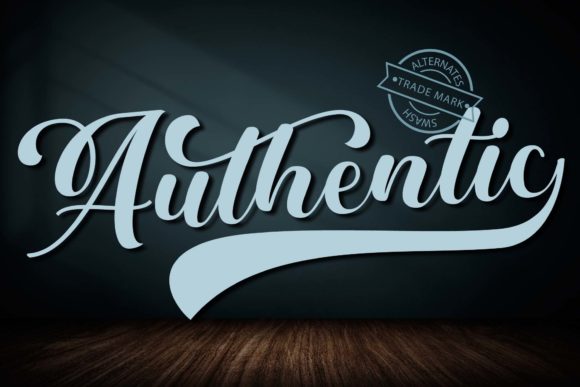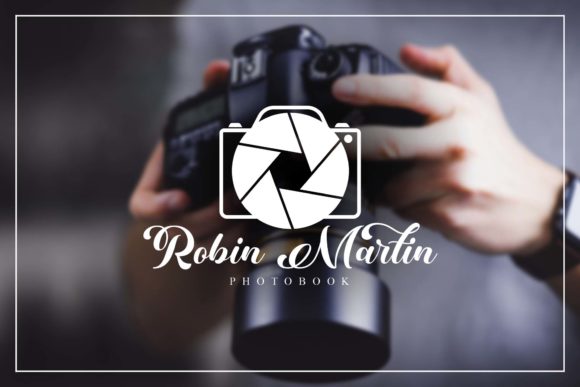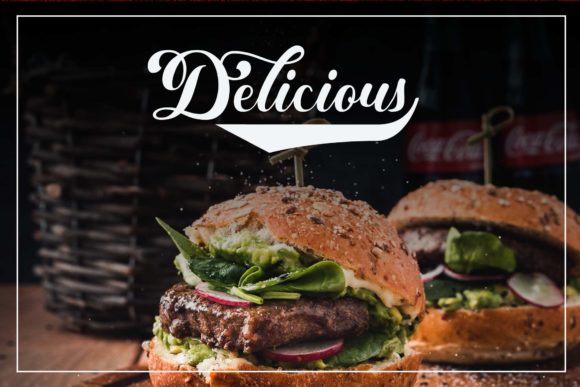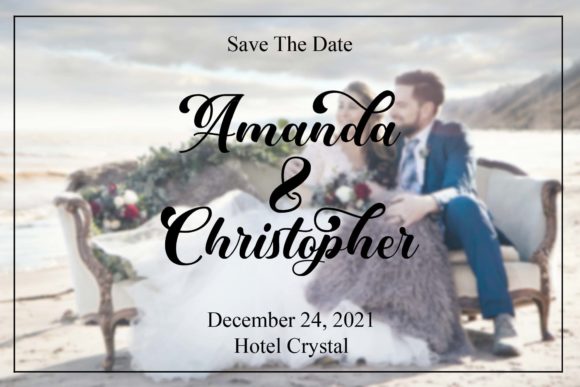
About the Authentic Font
Unleash your creativity with Authentic Font, a versatile font perfect for a wide range of applications. Authentic is a unique and elegant handwritten font. It looks beautiful on a variety of designs requiring a personalized style, such as wedding invitations, thank you cards, weddings, greeting cards, logos and so on. This font is PUA encoded which means you can access all of the glyphs and swashes with ease!
Authentic Font Usage Examples
Authentic Font Example